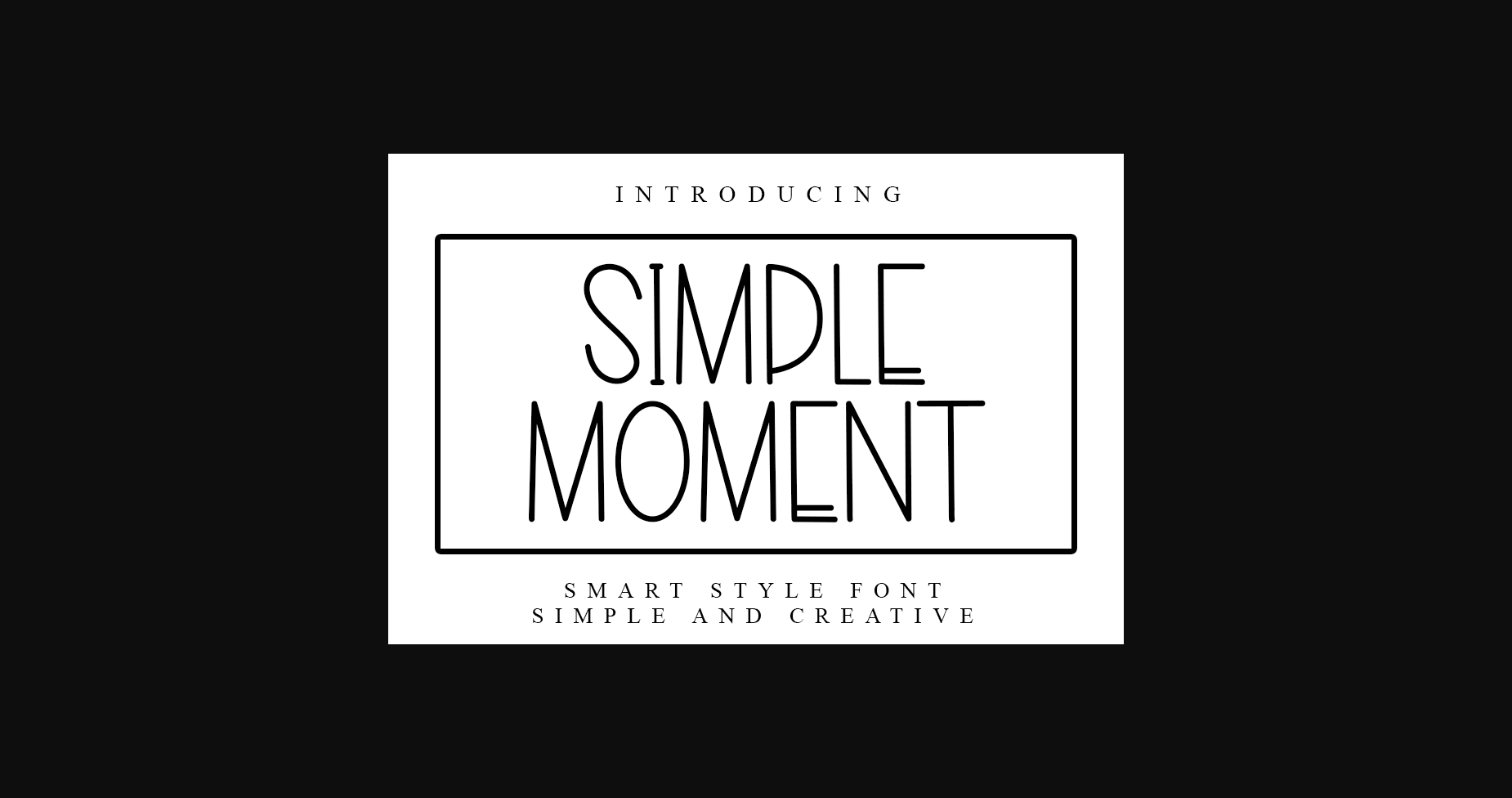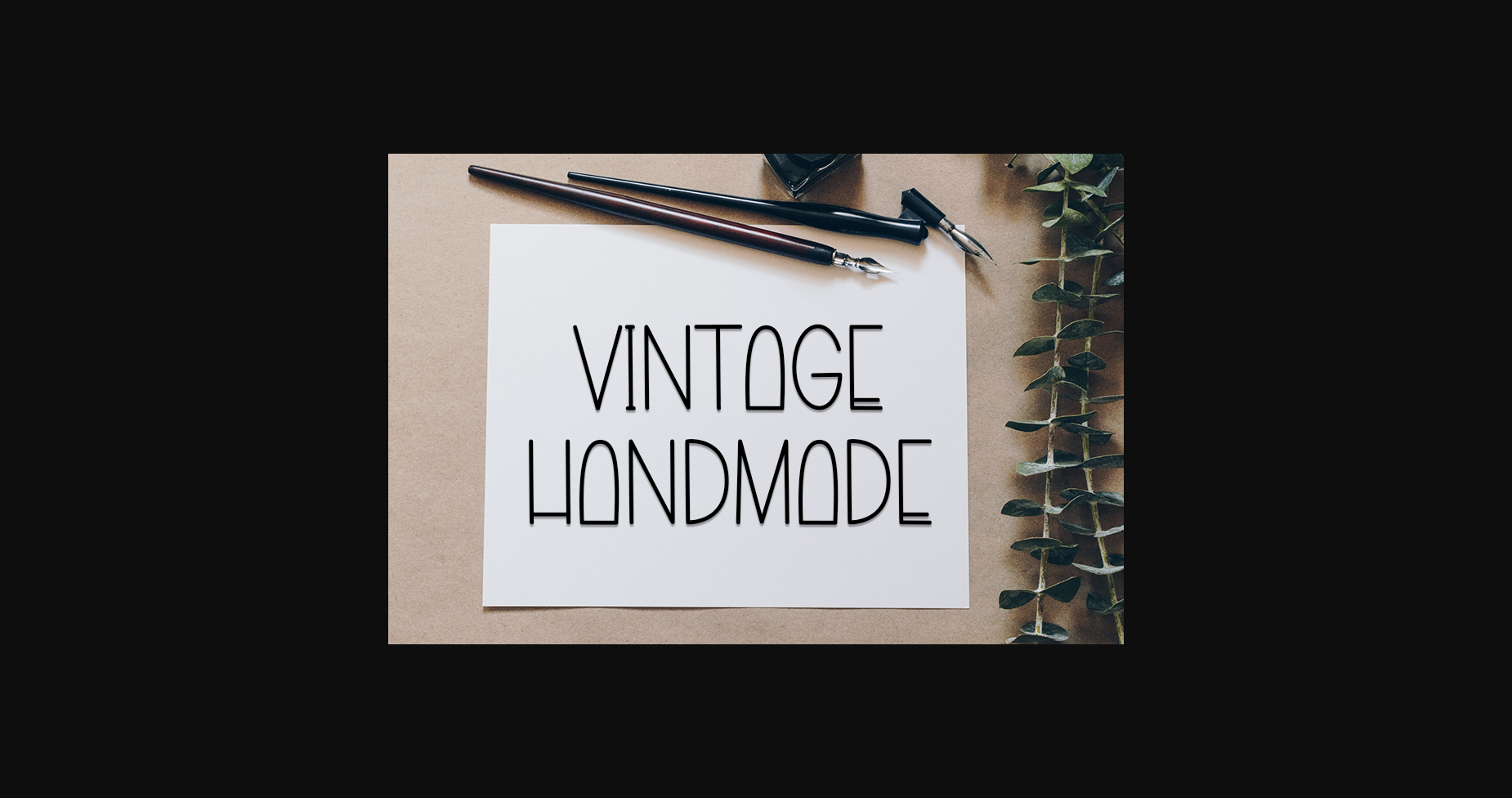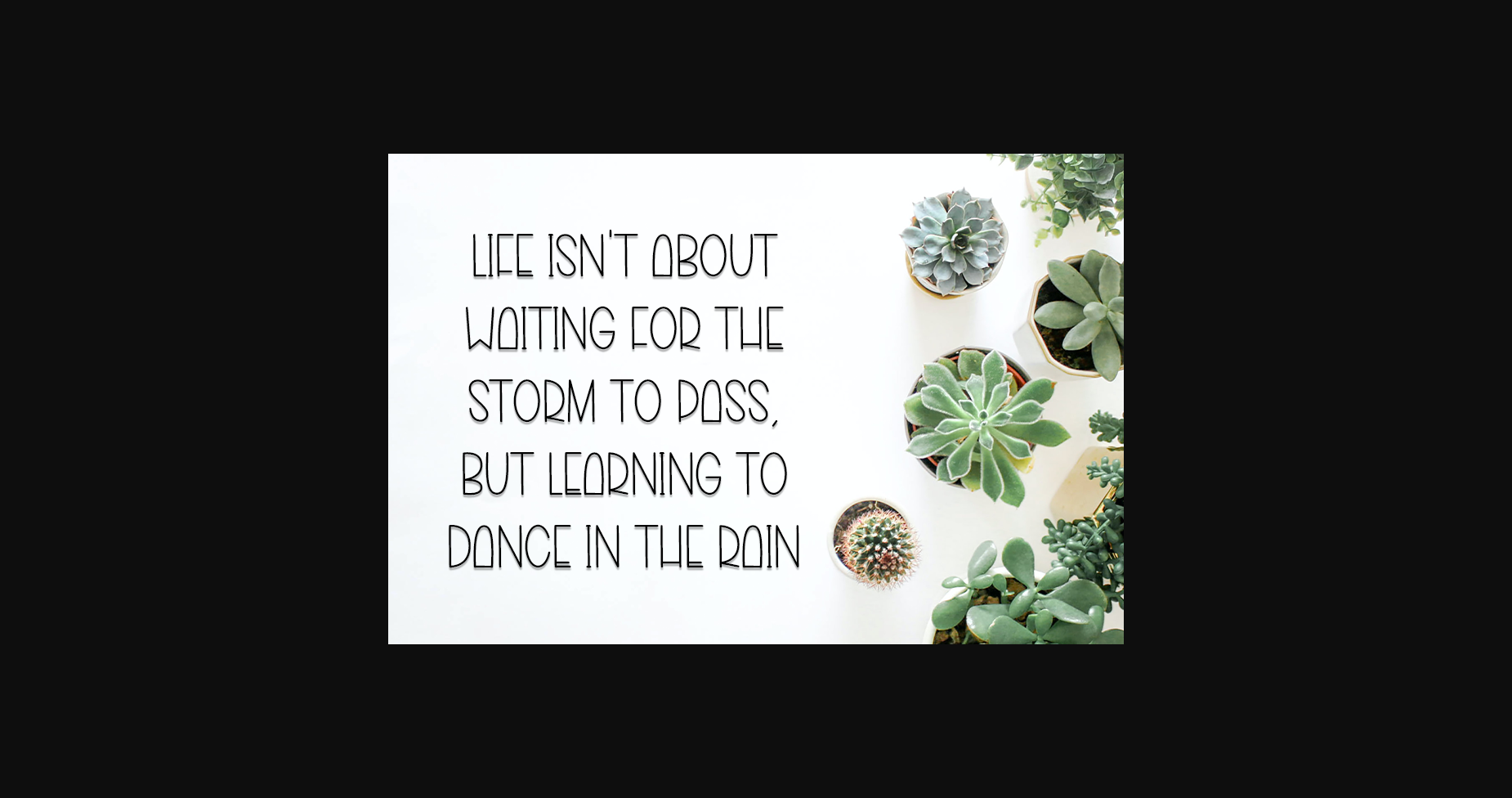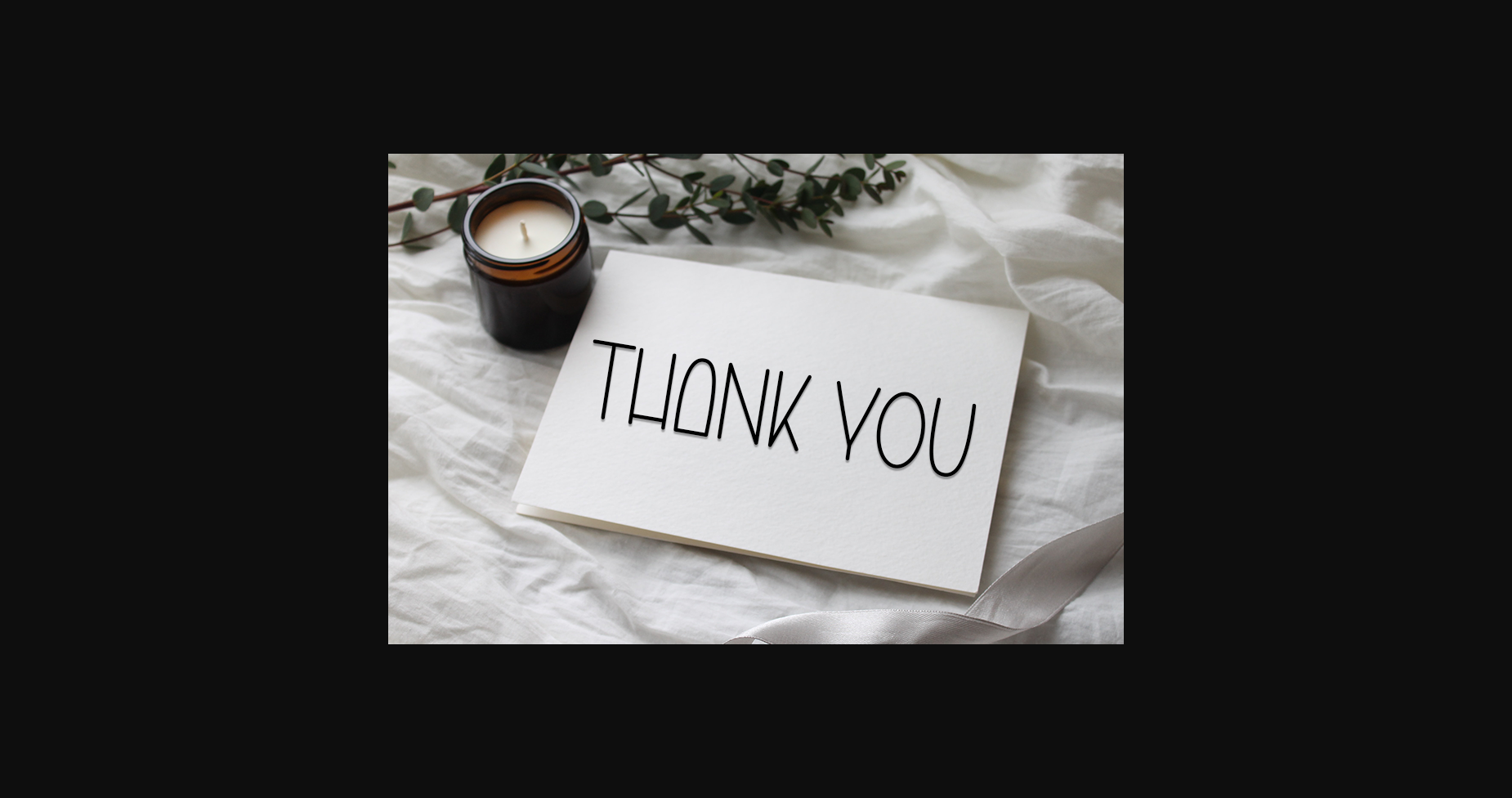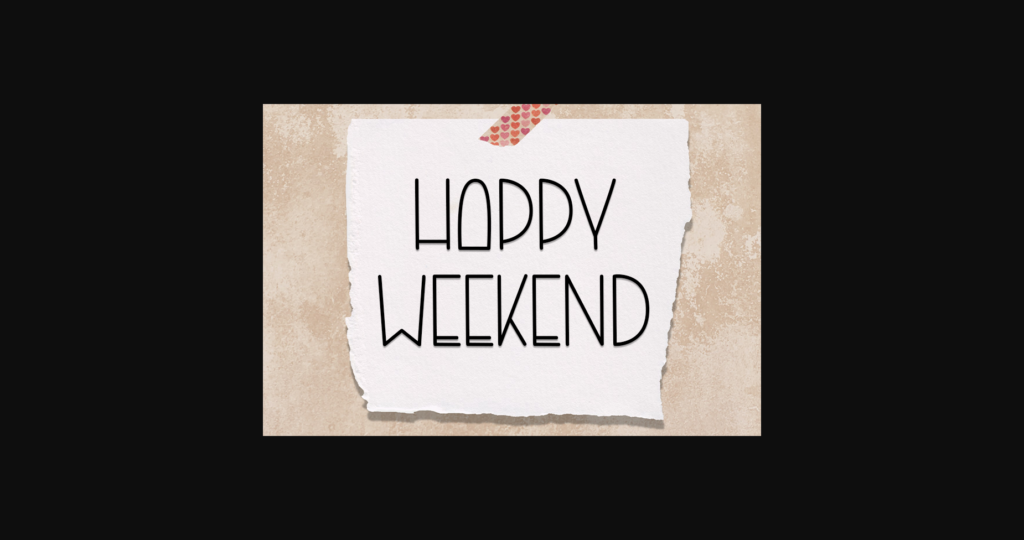
Simple Moment Font
About Simple Moment Font
Simple Moment is a cool and modern Sans serif font. Whether you’re using it for crafts, digital design, presentations, or creating greeting cards, this font has the potential to become your go-to font, whatever the occasion.